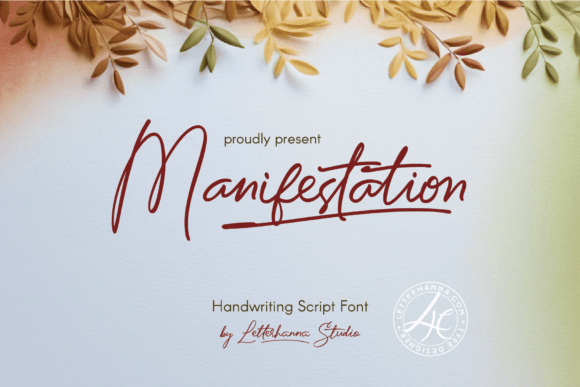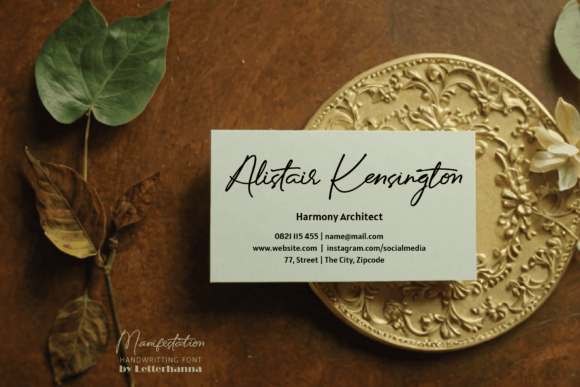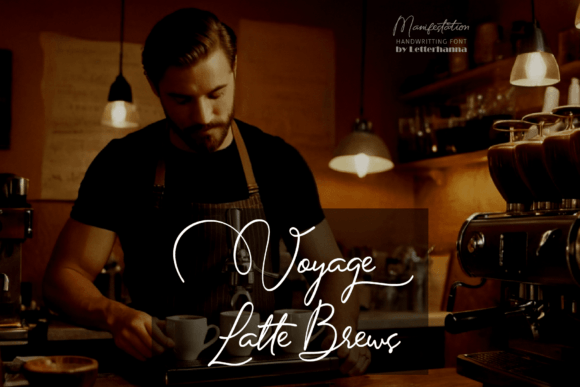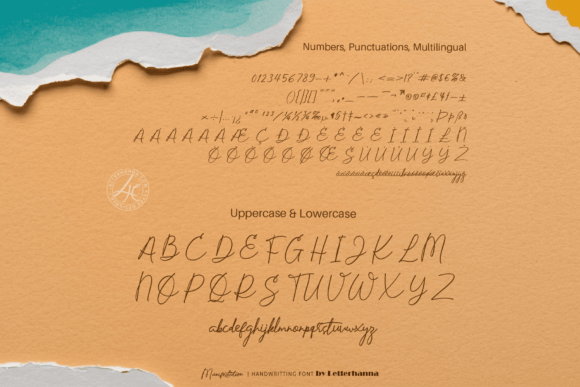
Manifestation Font: Elegant Handwritten Script for Branding & Social Media
About the Manifestation Font
Step up your design game with Manifestation Font, a font that exudes confidence and style. Manifestation is a captivating handwritten script font that brings your words to life with an authentic and expressive touch. Its elegant curves and natural flow will lend a personal charm to any project, from handwritten notes and invitations to creative branding and social media content.
Manifestation excels in projects requiring a touch of personal warmth and elegance. It’s ideal for short headlines, invitations, logos, and social media graphics where its expressive nature shines. Avoid using it for large blocks of body text or UI elements; its handwritten style can hinder readability in extended passages.
Pair Manifestation with a clean sans-serif like Lato or Open Sans for a balanced contrast, or a classic serif such as Garamond or Playfair Display for a more traditional feel. For a modern edge, consider pairing it with a geometric sans-serif font.
Manifestation possesses a sophisticated yet approachable personality. Its elegant curves convey a sense of refinement and warmth, making it suitable for brands focused on handmade products, boutique businesses, or projects emphasizing personal connection.
Manifestation Font Usage Examples
Manifestation Font Example